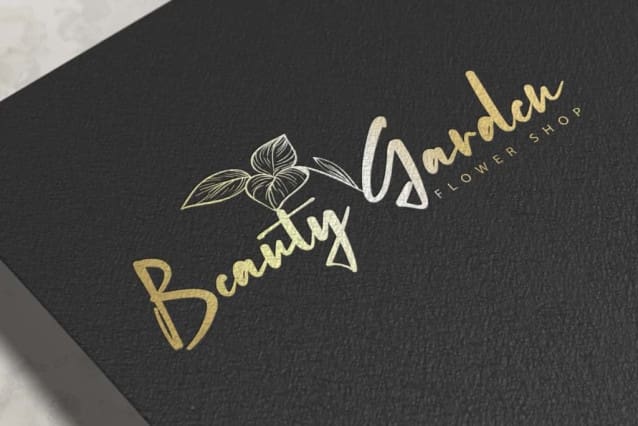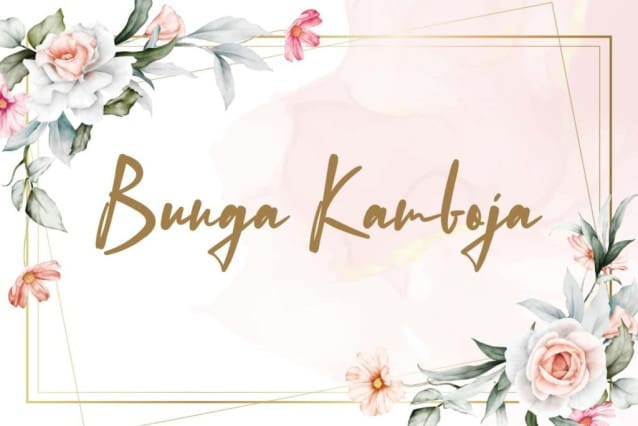
Bunga Kamboja Font
Bunga Kamboja Font is an artistic sophisticated handwriting with number of ligatures that support the natural look of any creative design you need, including branding logos, brochure, card designs, cover, header, label, product packaging, quotes, screen printing, stationery, sticker, template mockup, titles, watermarks, website, or wedding invitations.
Bunga Kamboja Font includes a complete set of Basic Uppercase and Lowercase Characters, Numbers, Punctuation Marks and Symbols. Also with Ligature characters prepared to provide different options so as to present a distinctive handwritten touch for any industry, such as advertising, author, boutique, cafe, cosmetic, event organizer, florist, graphic design, handicraft, hotel, skincare, spa salon, and anything that requires a signature font style.